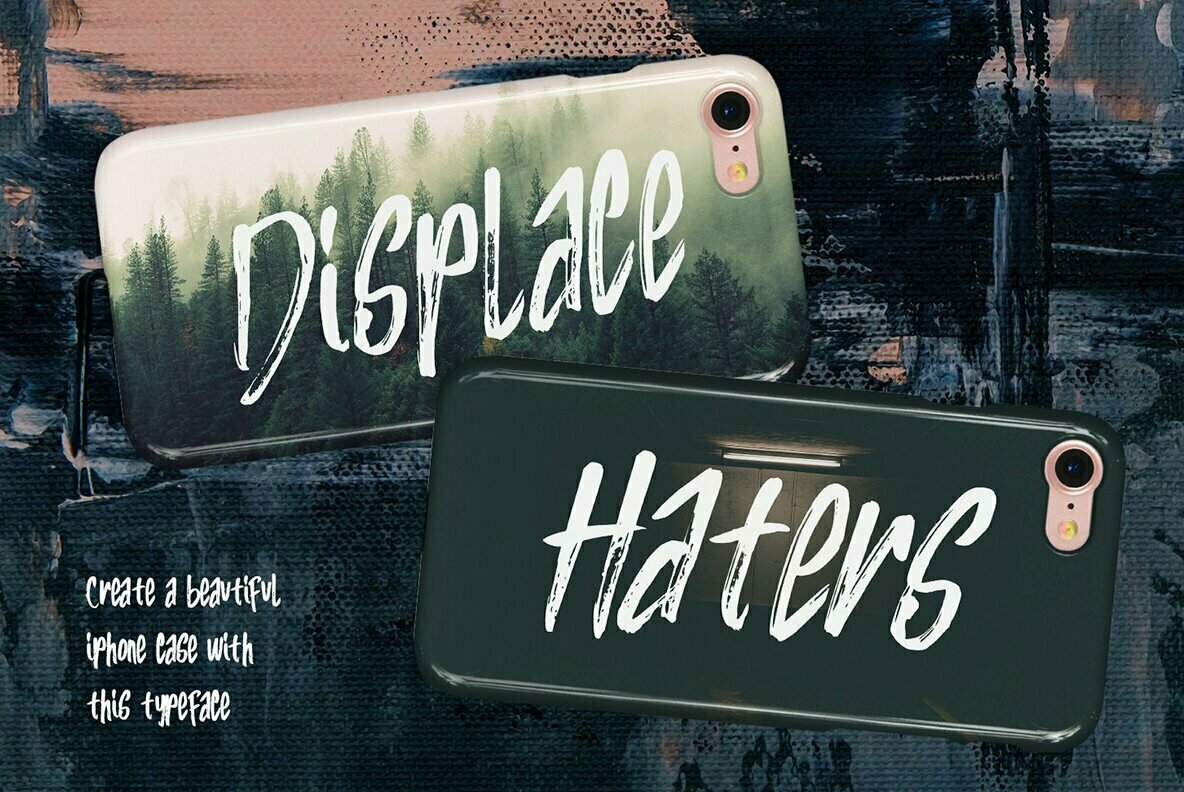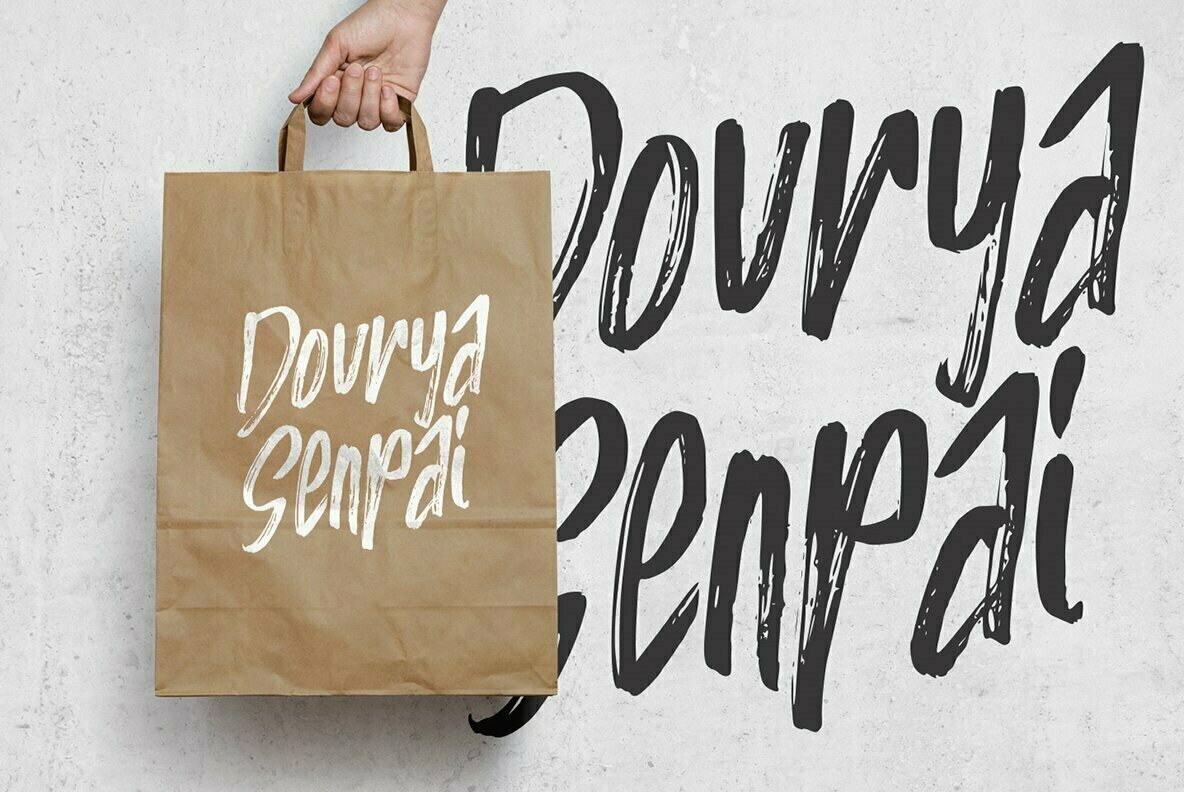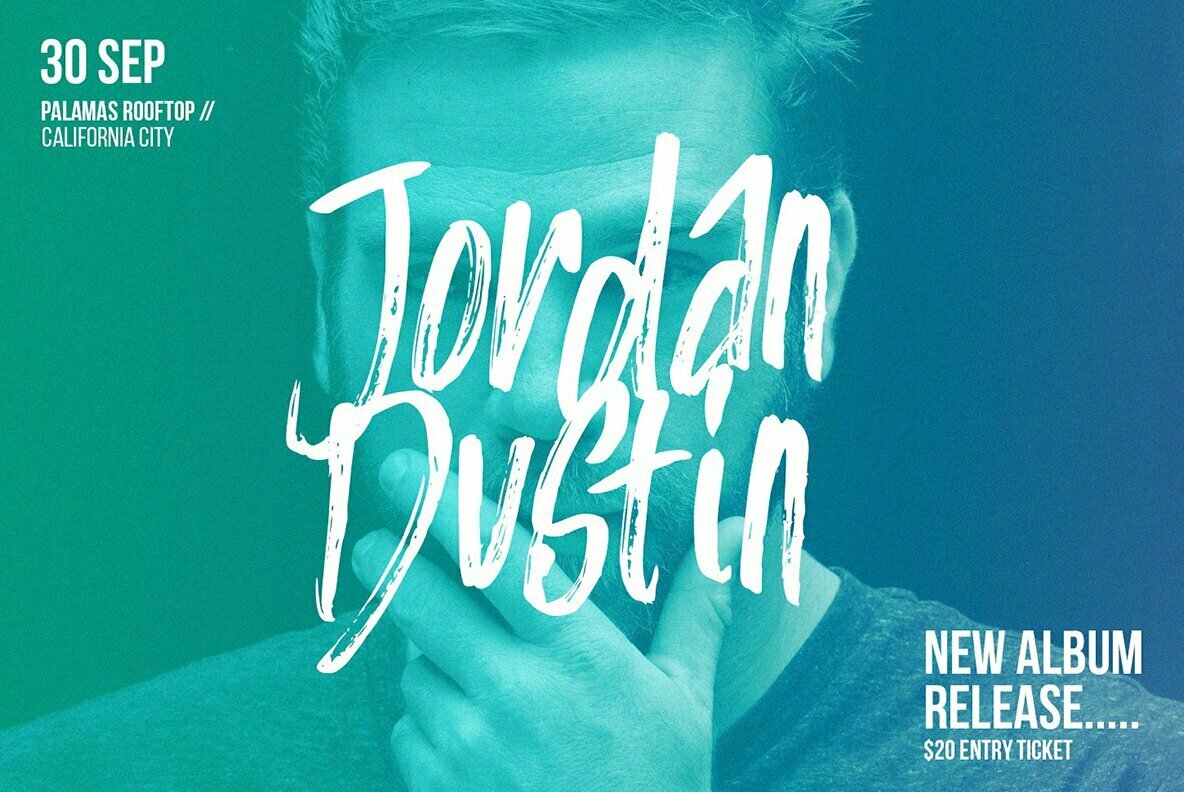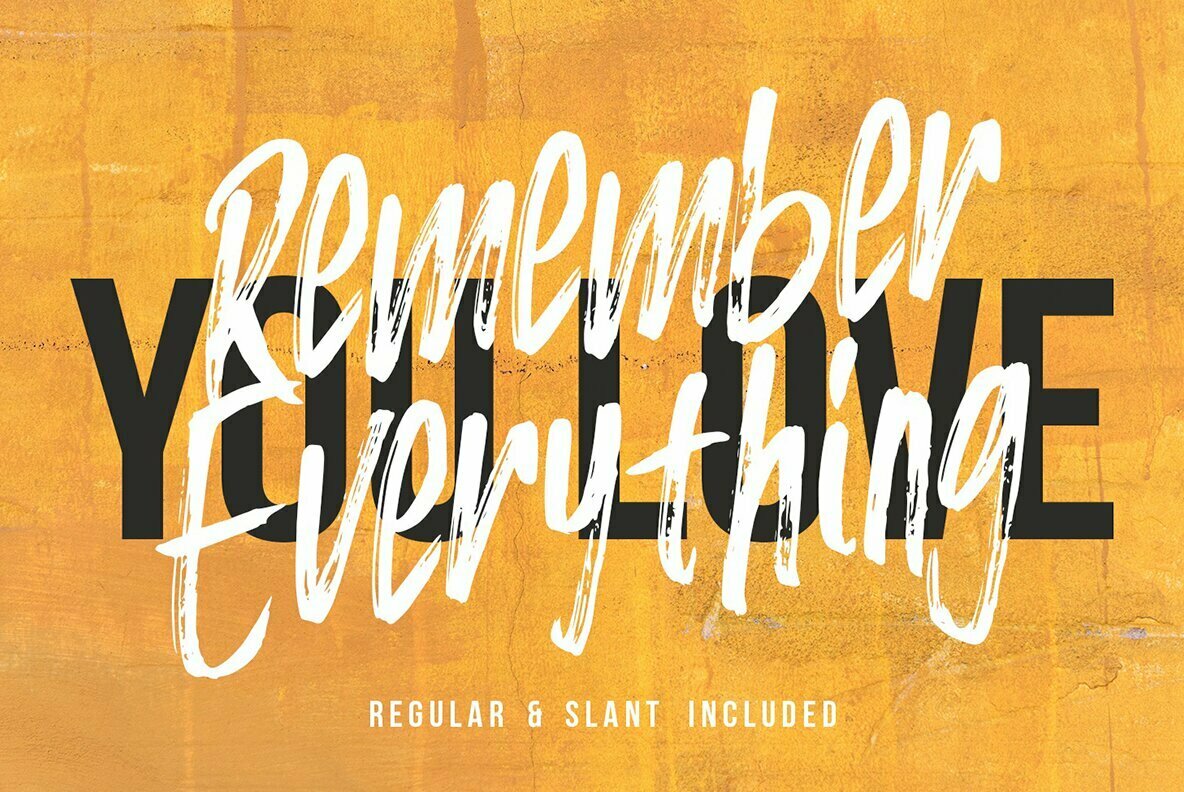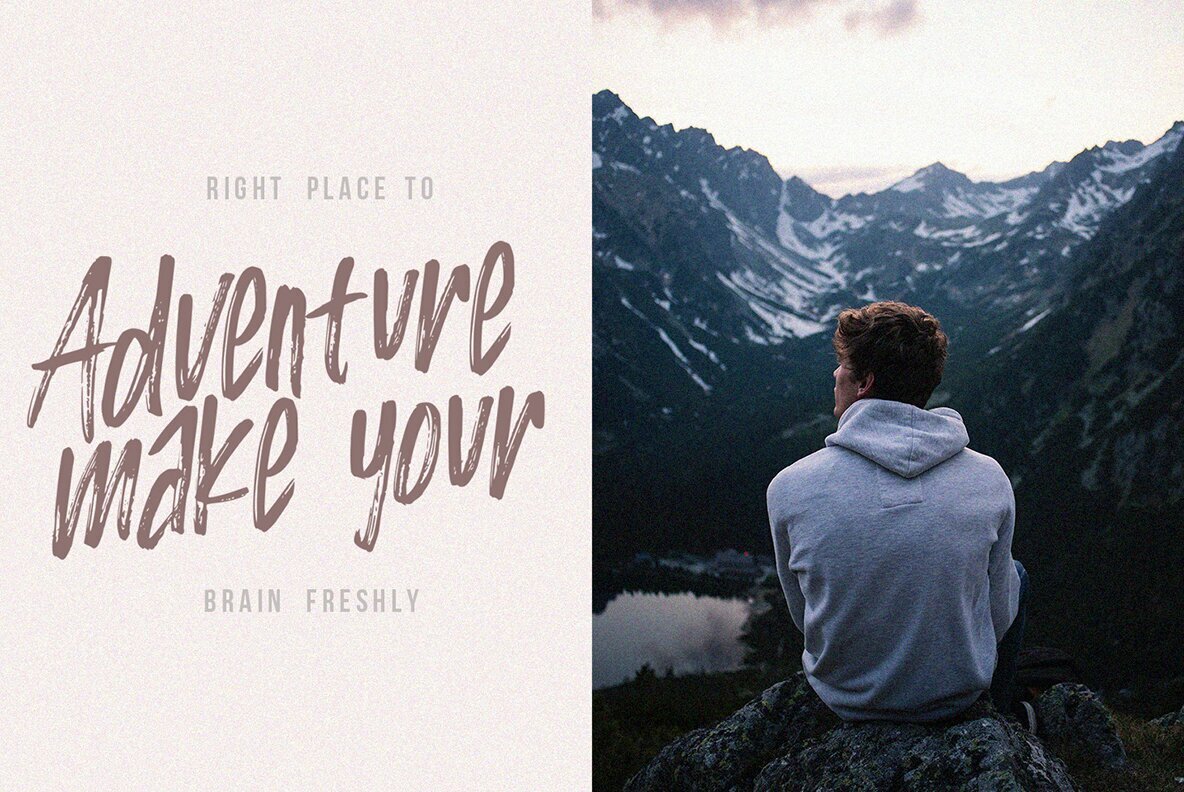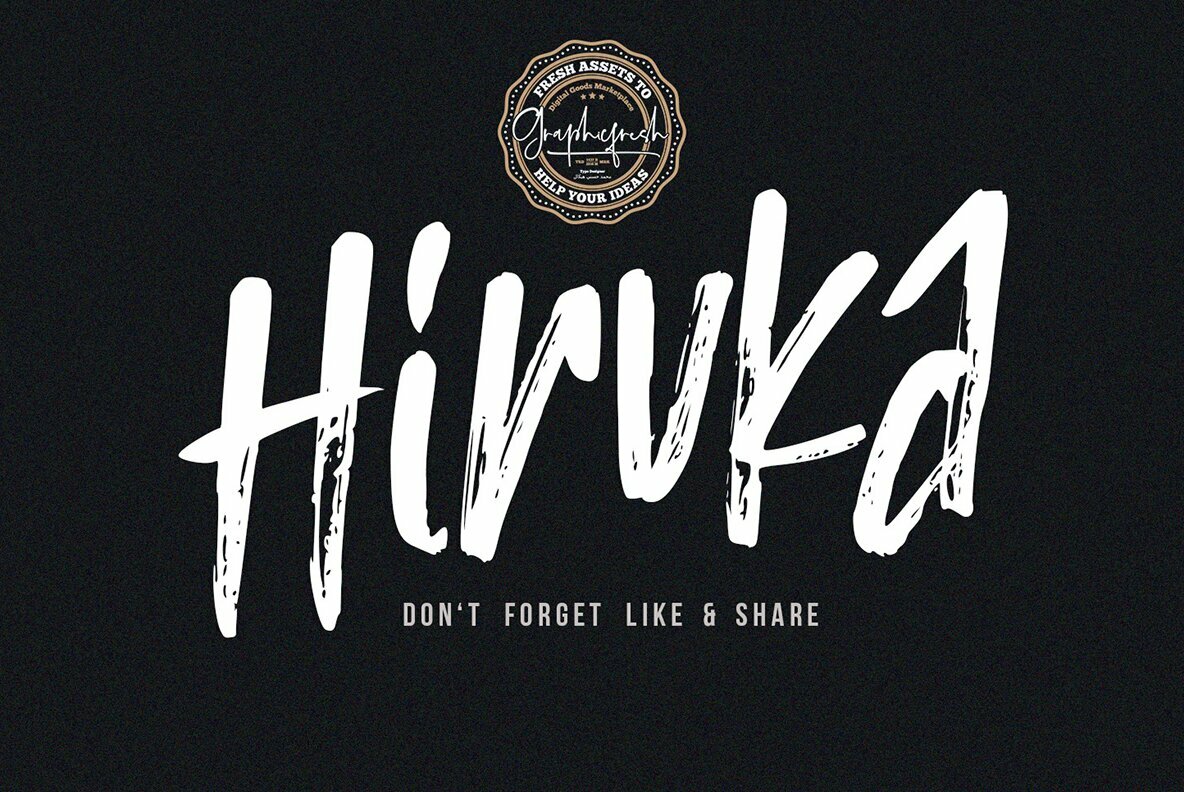
Hiruka Font
Hiruka brings the compelling aesthetic of ink streaks on paper to the digital world, capturing the nuance and individuality of each brushstroke. Crafted with patience and passion, this typeface embodies artistic expression through a detailed creation process that preserves its distinctive style. Features: Hiruka is an ideal choice for projects seeking a personal and artistic touch.Hiruka: A Handbrushed Typeface